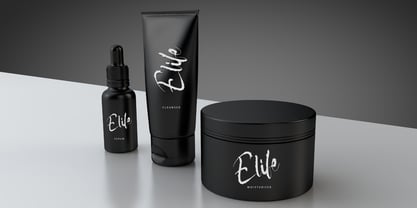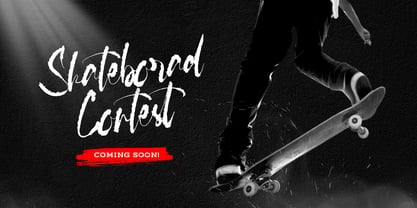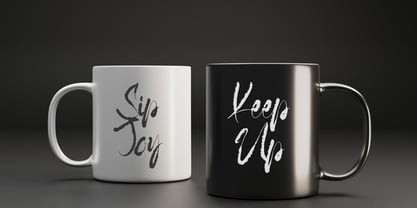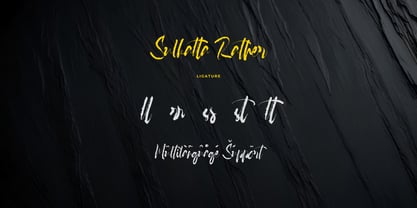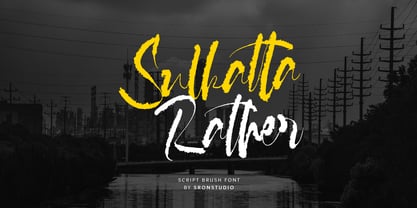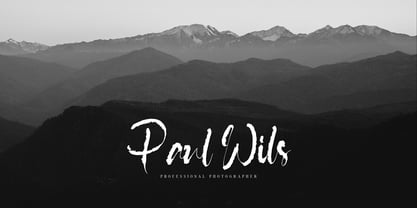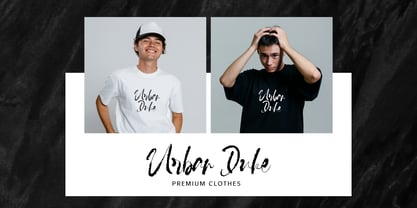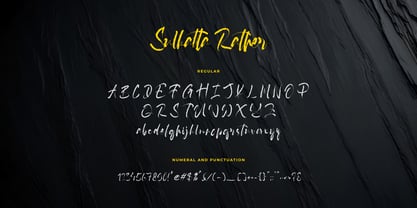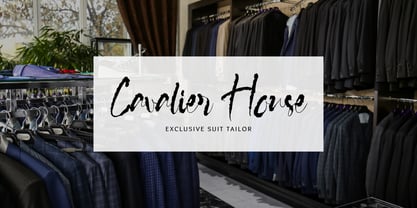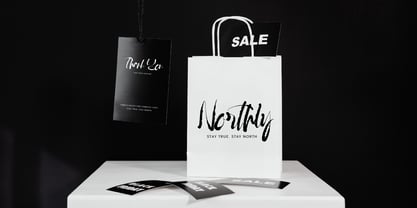
Sulkatta Rather
Sulkatta Rather is a rough script brush font filled with bold energy and raw personality. Its textured strokes and handcrafted feel make every letter look dynamic and expressive. Perfect for posters, branding, album covers, apparel, and creative projects that need a strong artistic impact, Sulkatta Rather brings an authentic, rugged charm to your typography. What’s Included: - ligatures - Numerals & punctuation - PUA encoded for easy access - Multilingual support - Works seamlessly on Mac & Windows Thank you very much 🙂